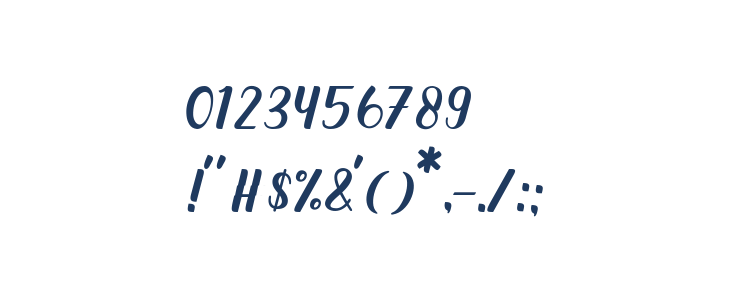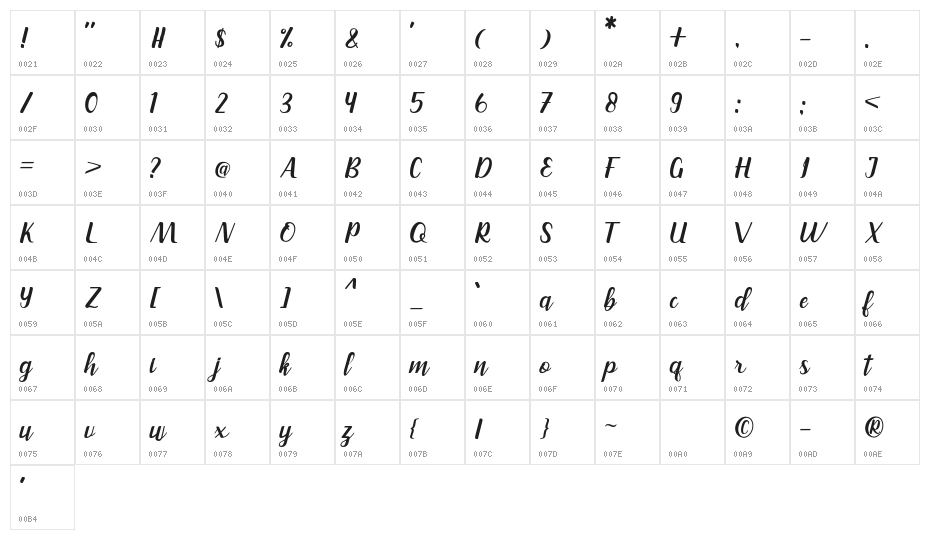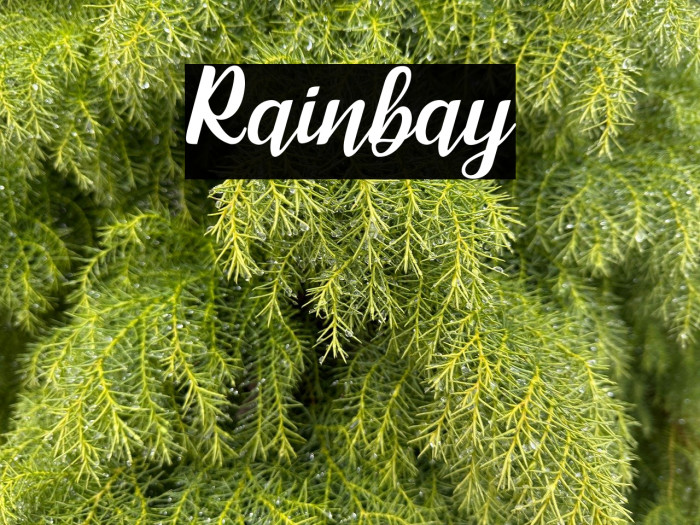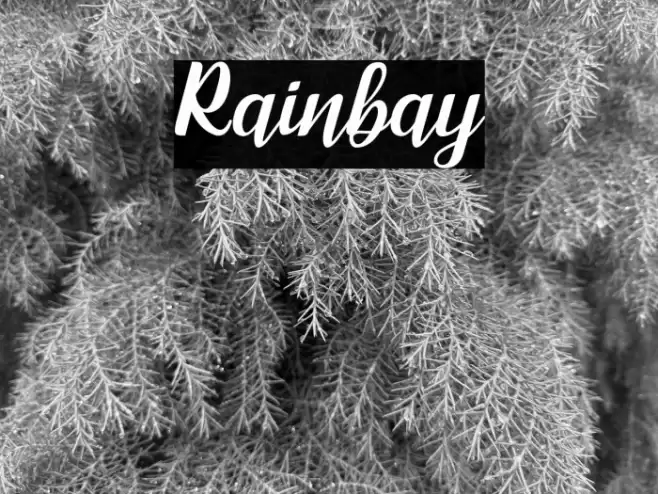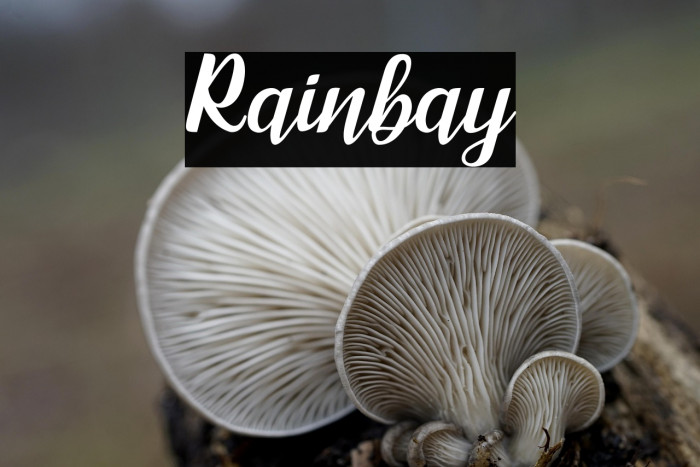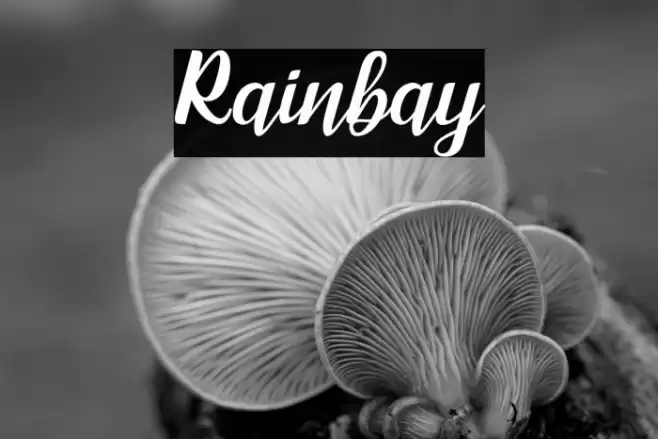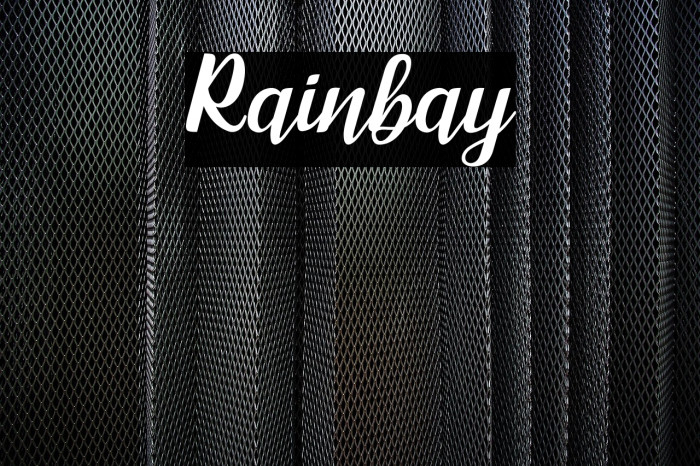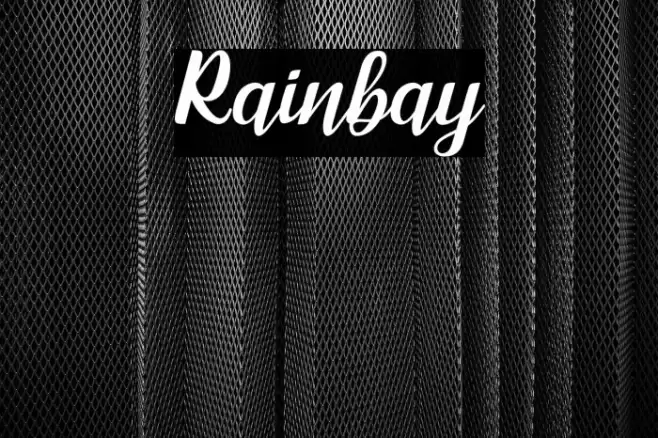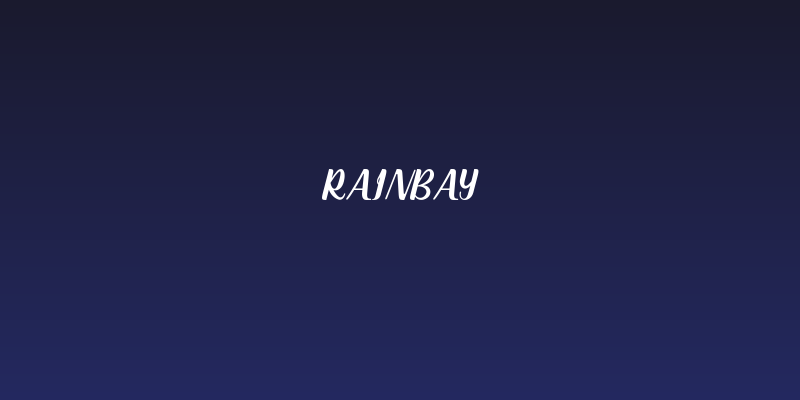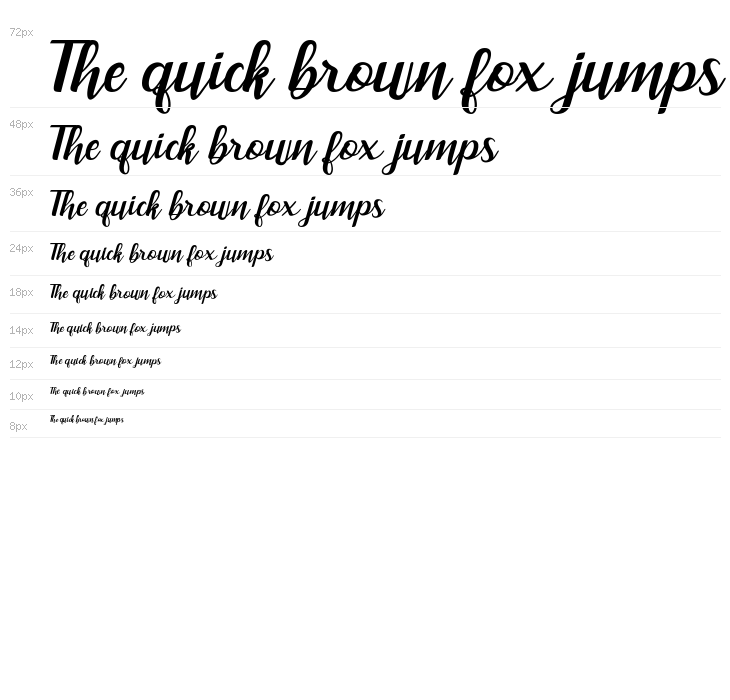
Rainbay Font
Rainbay Description
This font exudes a dynamic and elegant style, characterized by its flowing script-like appearance. The uppercase letters are bold and slightly slanted, giving a sense of movement and sophistication. The lowercase letters maintain a consistent style, with smooth curves and a slightly condensed form. Numbers are clear and legible, matching the overall aesthetic with a touch of flair. Special characters are well-integrated, maintaining the font's cohesive look. This font is perfect for projects that require a touch of elegance and modernity.
| Proposed Projects | Ideal for wedding invitations, branding, logos, and elegant packaging designs. |